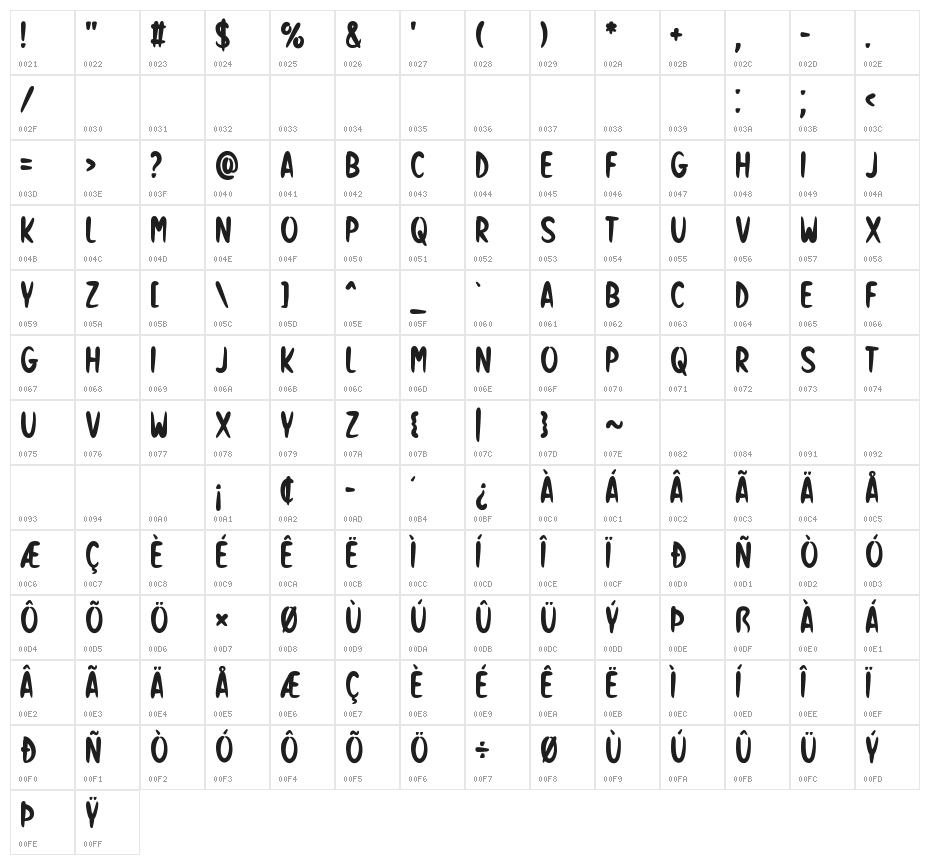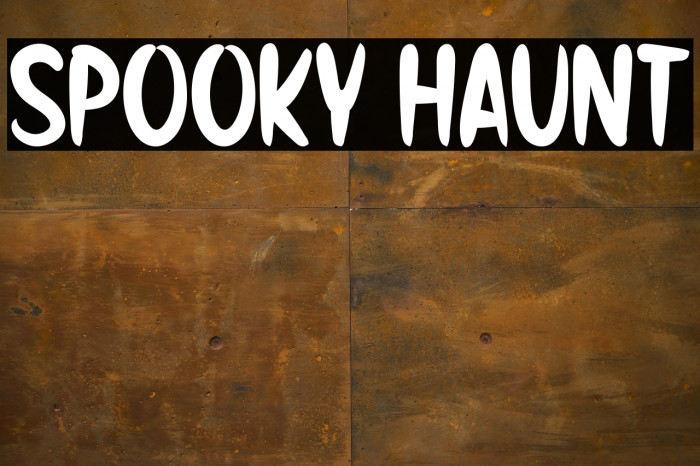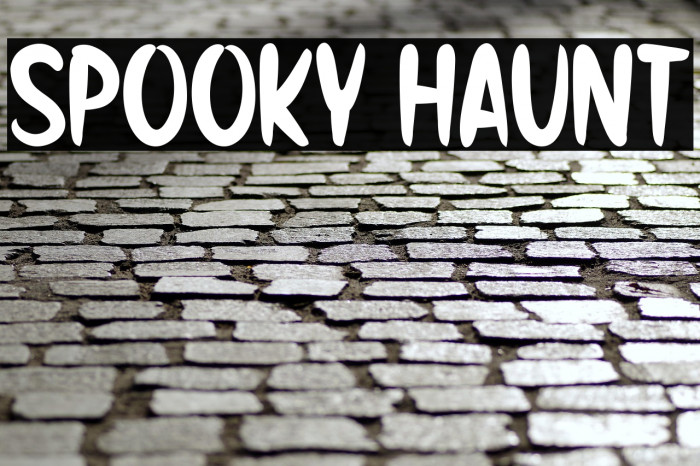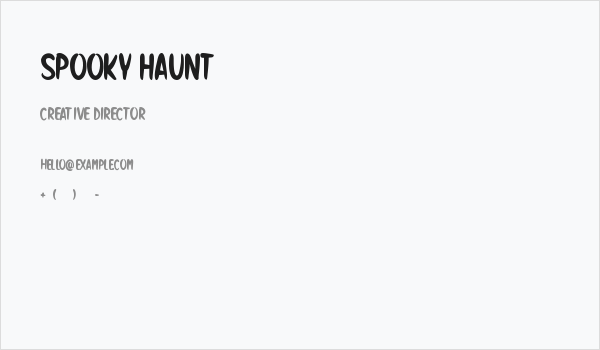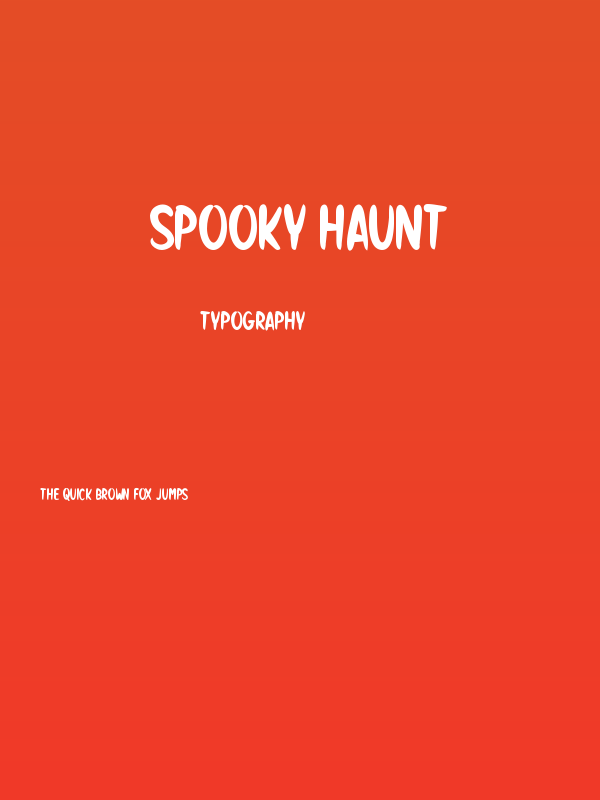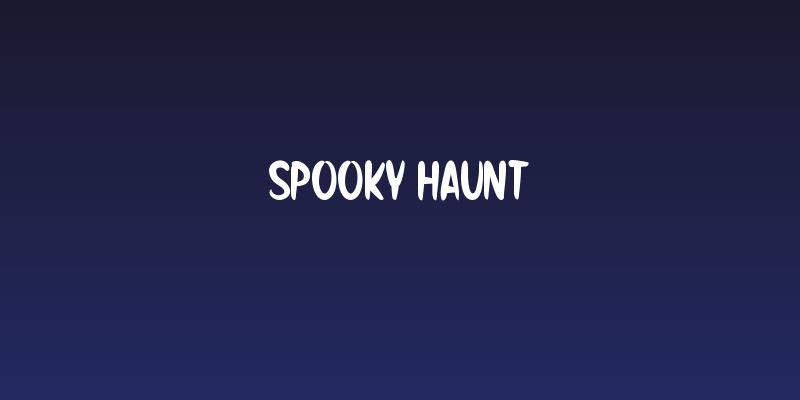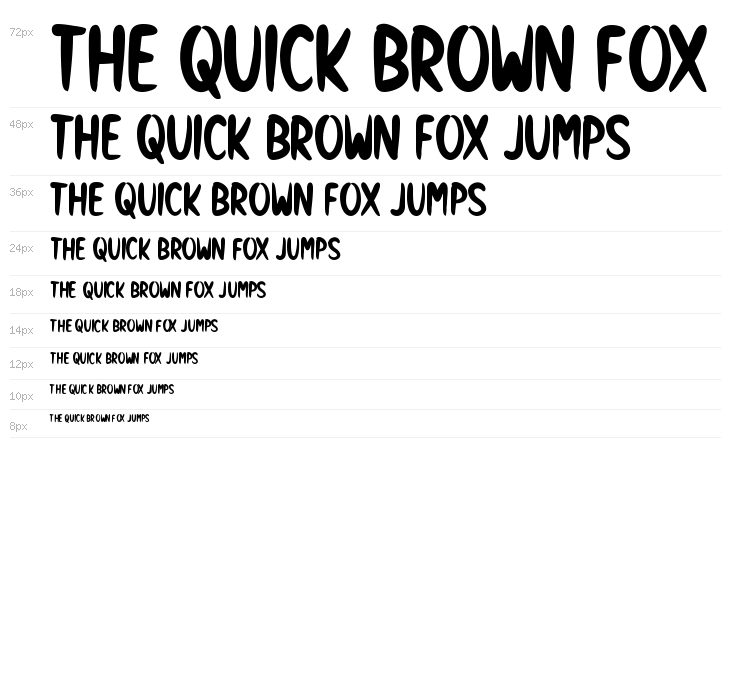
Spooky Haunt Font
Spooky Haunt Description
This font features a playful and spooky style, characterized by its bold, rounded letters with irregular edges that give it a hand-drawn appearance. The uppercase and lowercase letters maintain a consistent height, creating a uniform look across the text. The strokes are thick and slightly uneven, adding to the whimsical and eerie feel. Special characters are designed with the same playful irregularity, making them blend seamlessly with the alphabet. This font is perfect for Halloween-themed projects or any design that requires a touch of fun and mystery.
| Proposed Projects | Ideal for Halloween invitations, themed posters, children's book covers, and playful branding. |